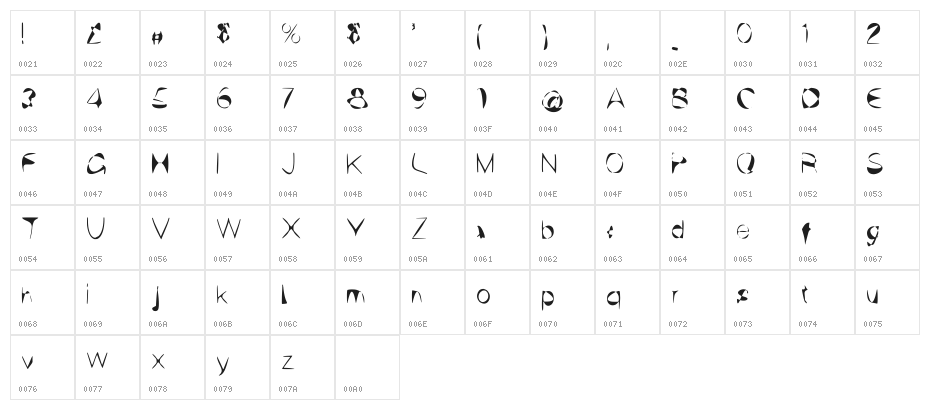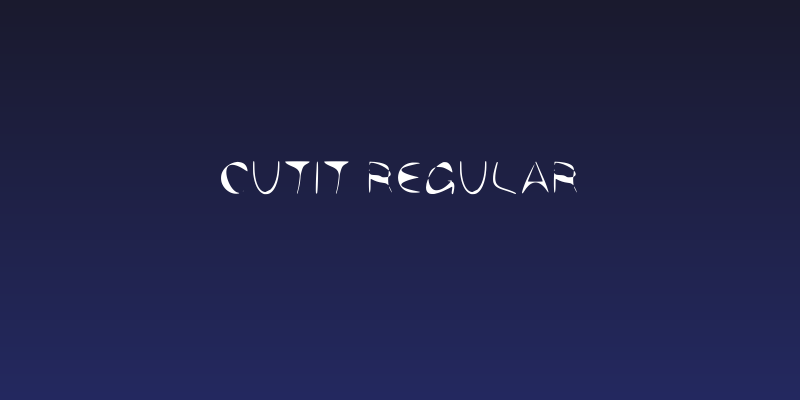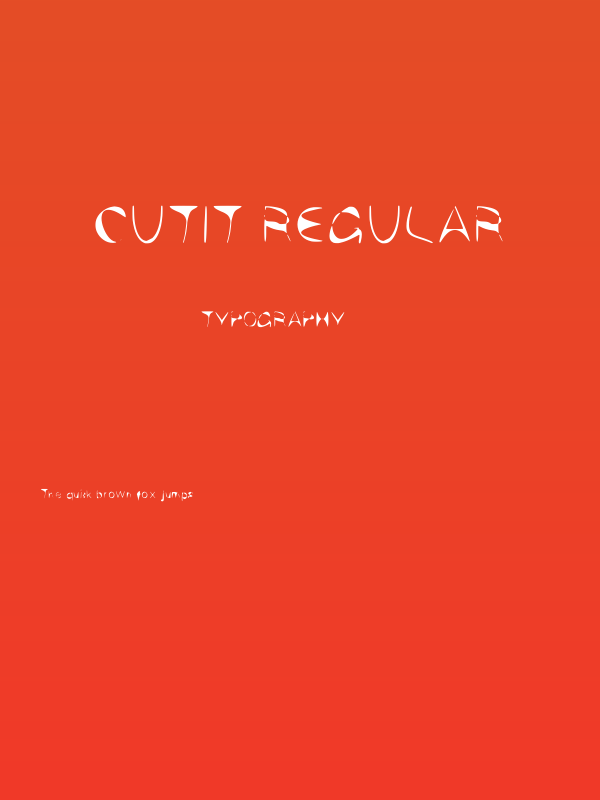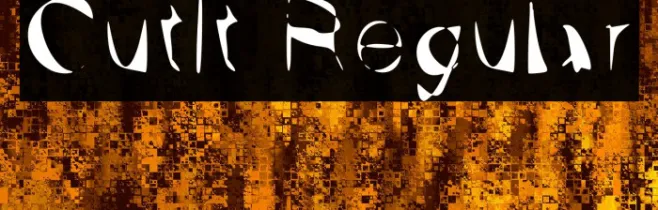
CutIt Regular Font
CutIt Regular Description
This font features a highly stylized and abstract design, characterized by sharp angles and irregular shapes. The letters appear as if they have been cut or sliced, creating a dynamic and edgy appearance. The uppercase and lowercase letters maintain a consistent style, with each character exhibiting unique cuts and curves. The numbers and special characters follow the same design principles, ensuring a cohesive look across all elements. This font's distinct and unconventional style makes it stand out, offering a bold statement in any design project.
| Proposed Projects | Ideal for modern art posters, edgy branding, album covers, and creative digital media. |